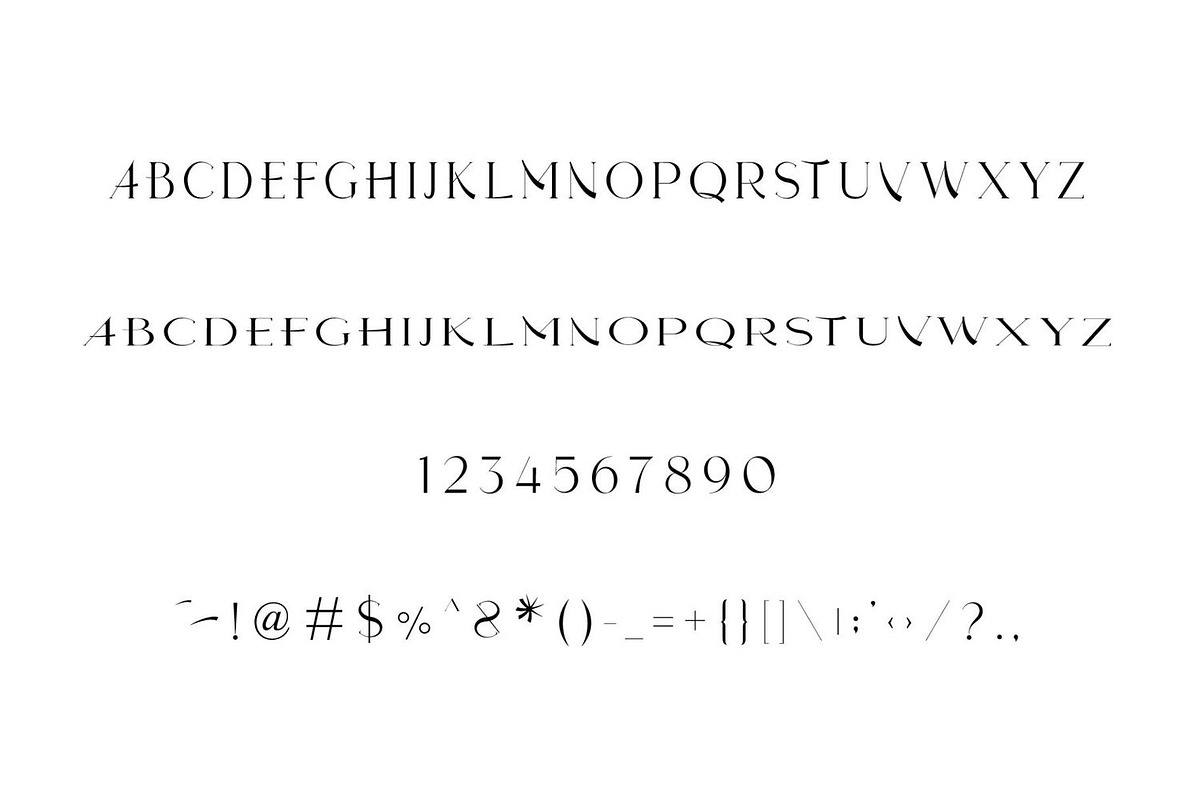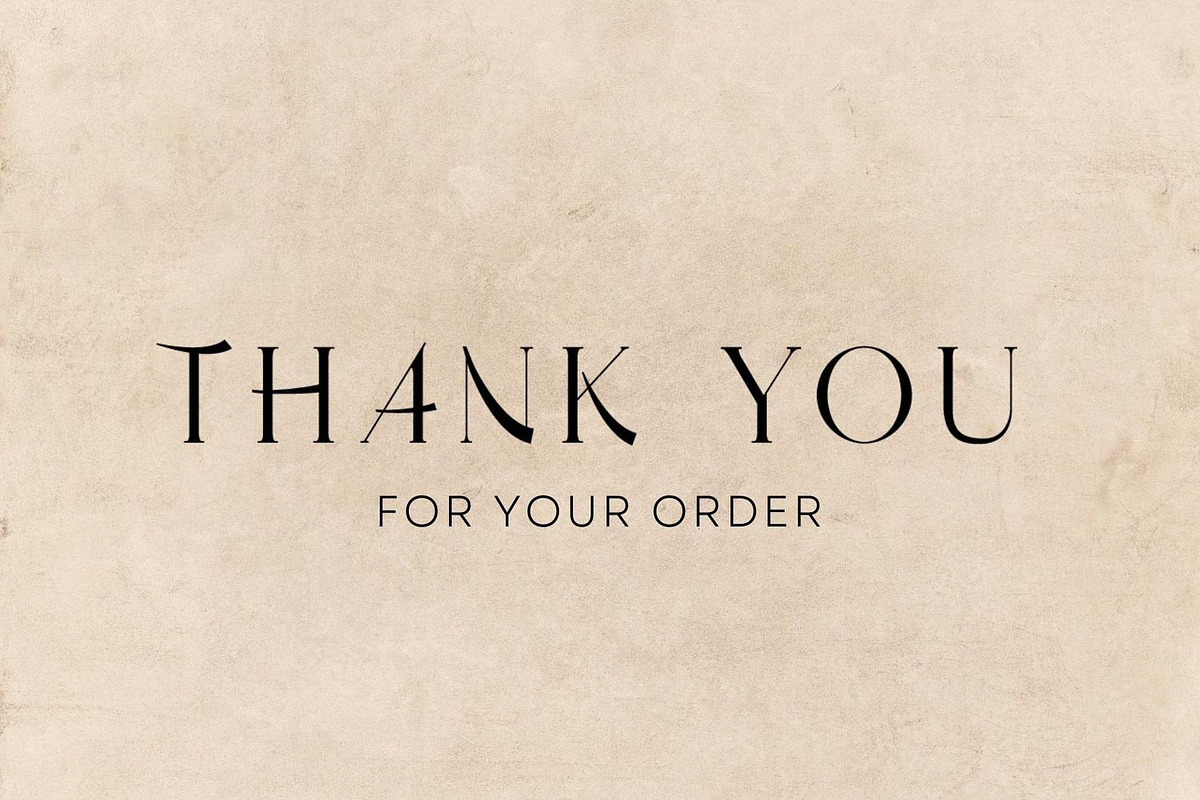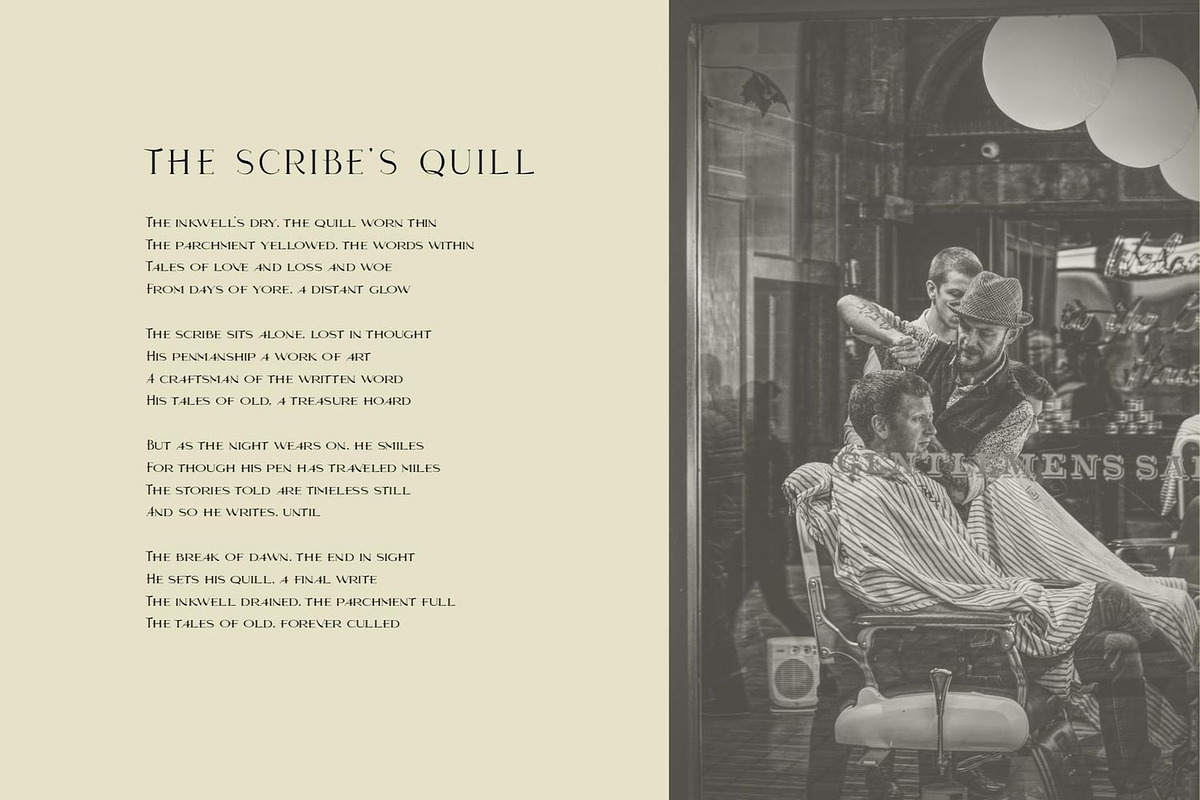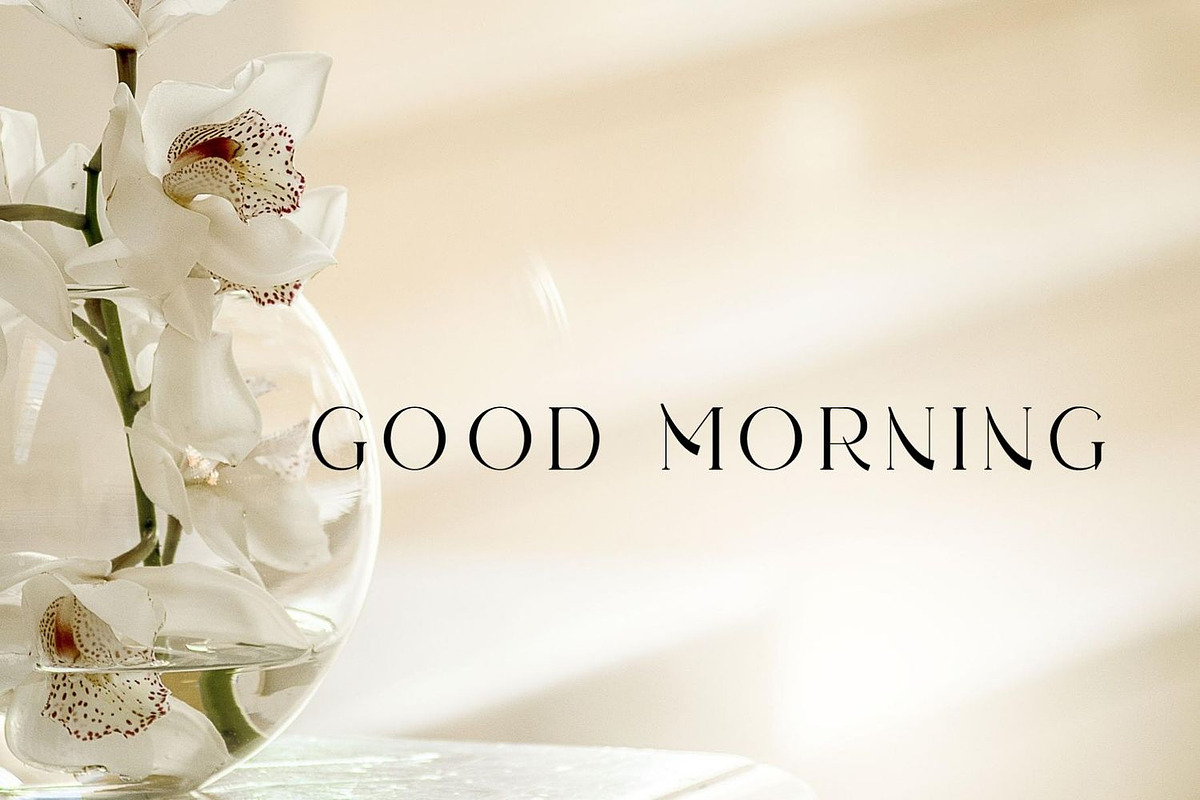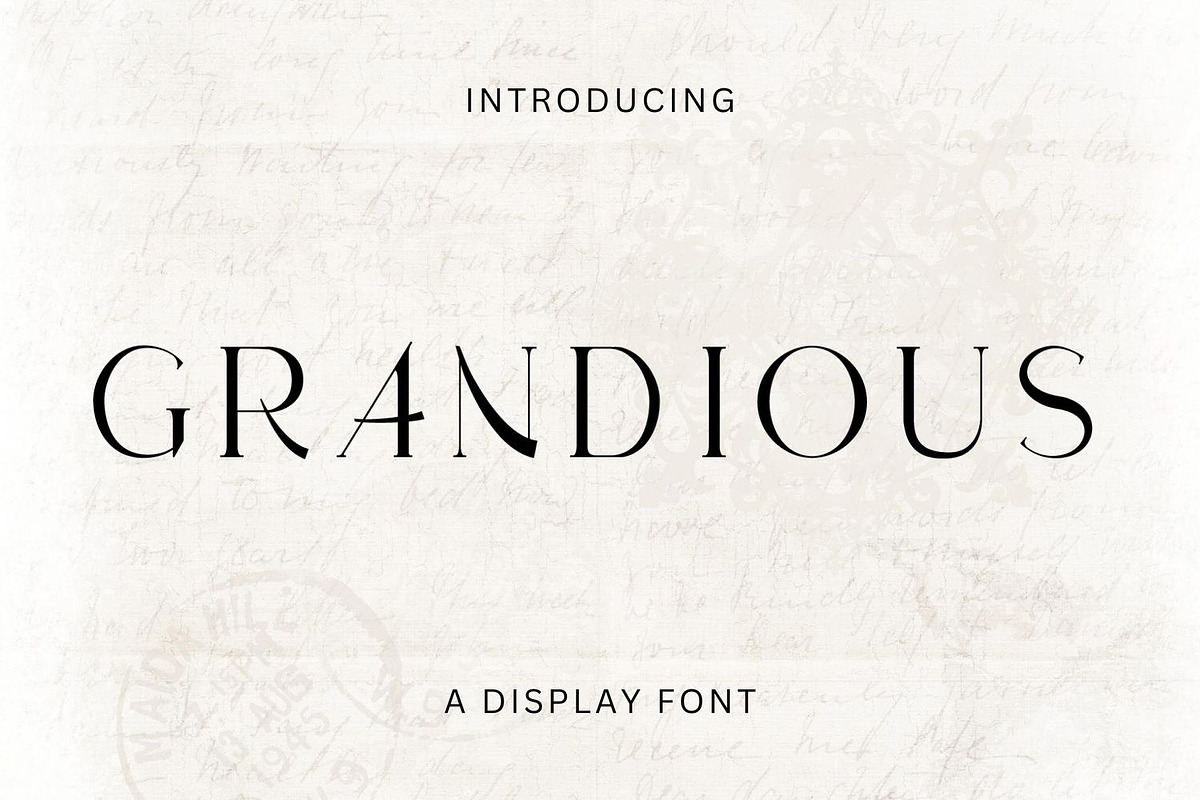
Grandious - An Aesthetic Font
Introducing Grandious, an aesthetic display font designed to captivate. This font boasts elegance and sophistication, perfect for adding a touch of luxury to your designs. With its stunning aesthetic, Grandious improves any project, from branding to editorial designs, delivering a timeless appeal that stands out effortlessly.